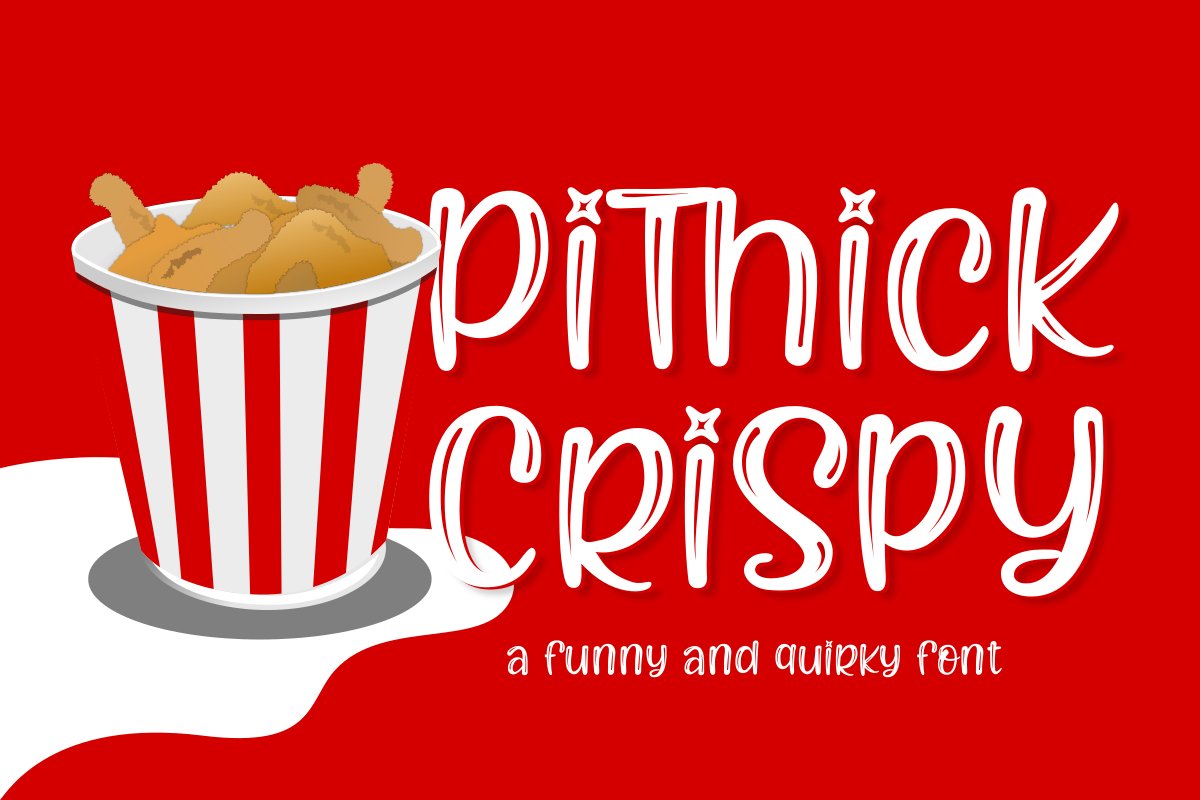
Pithick Crispy | a funny and quirky font
Pithick Crispy
Pithick Crispy is a funny and quirky font.
Make your craft or project have unique and spectacular art!